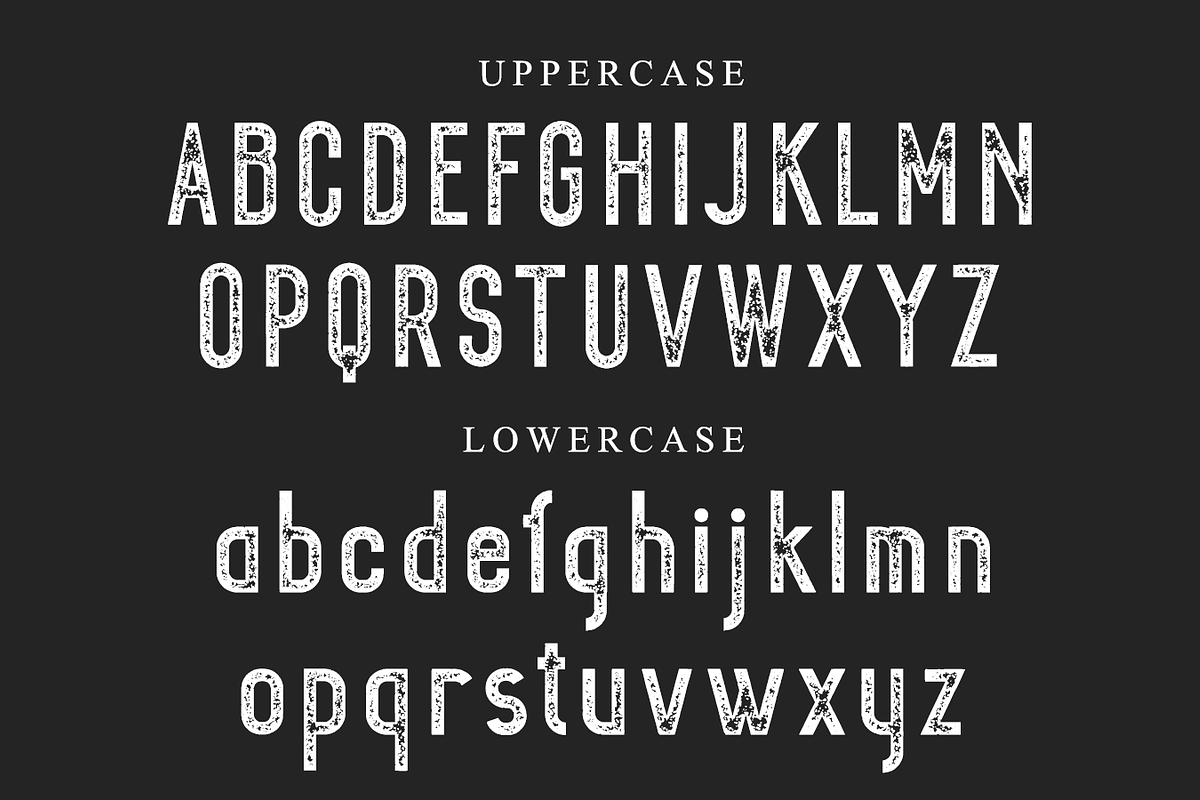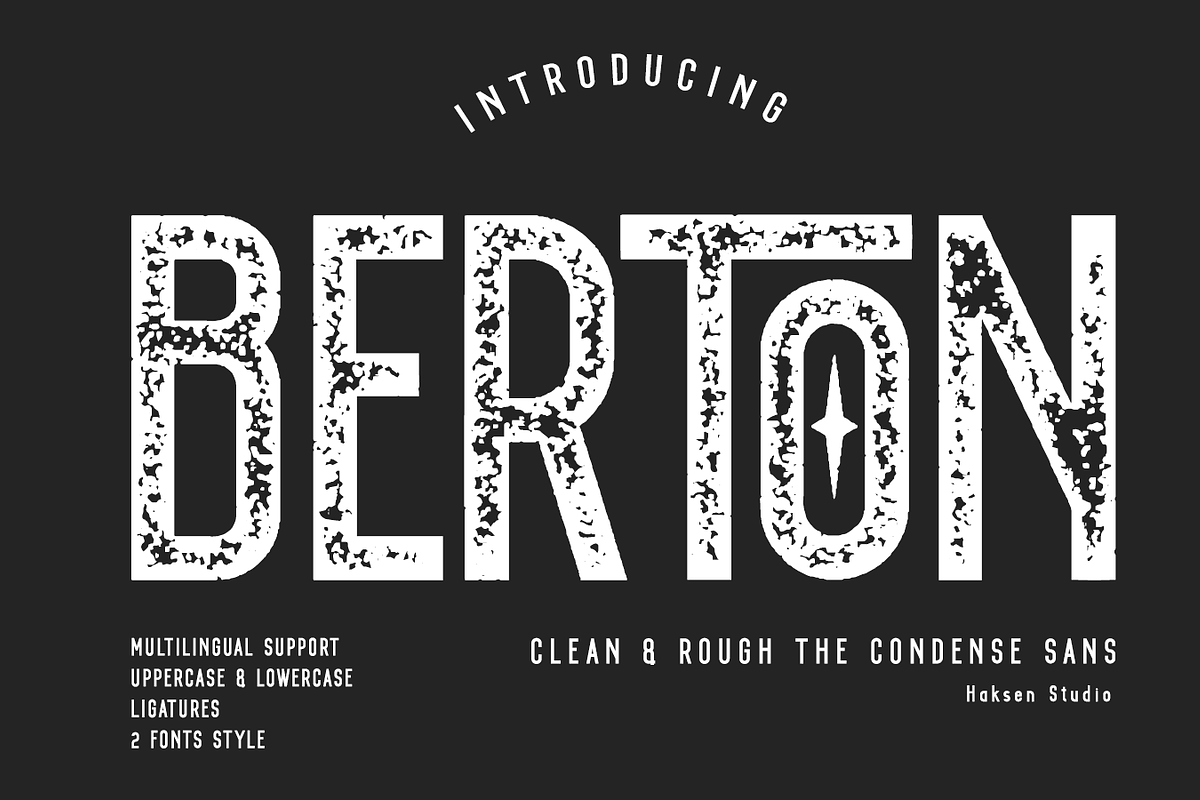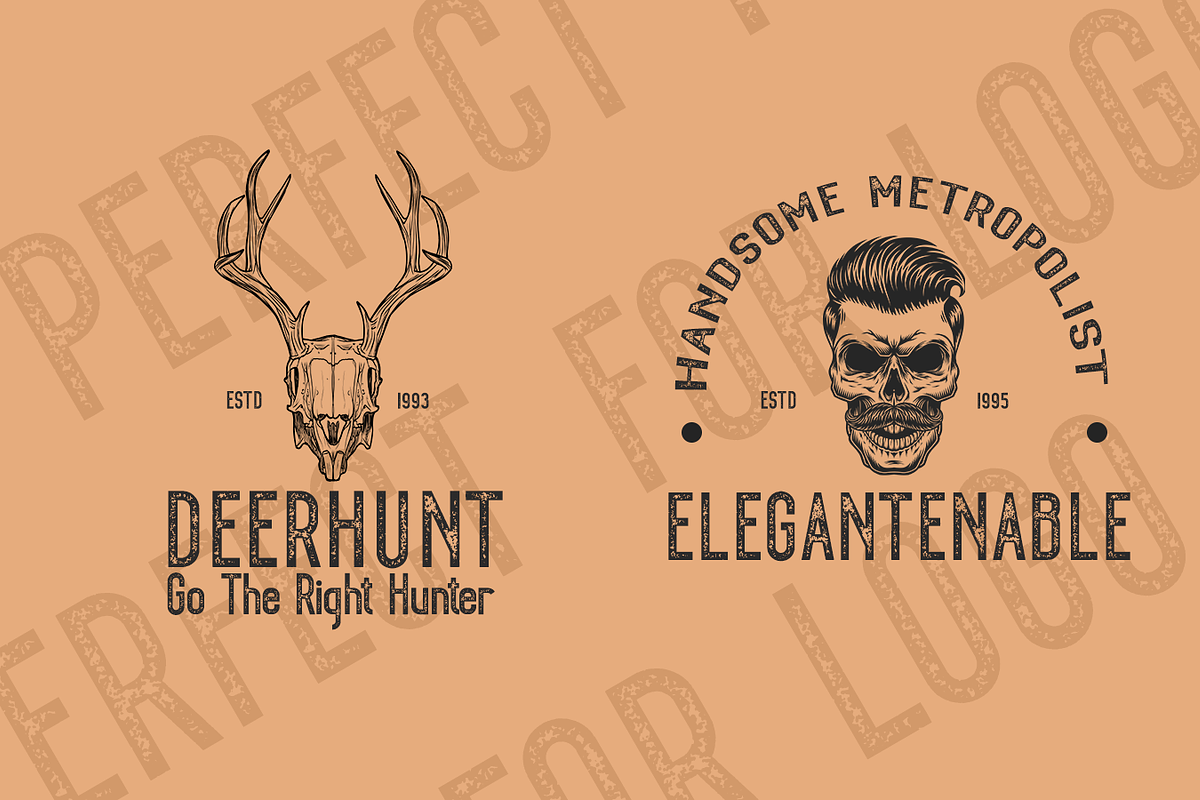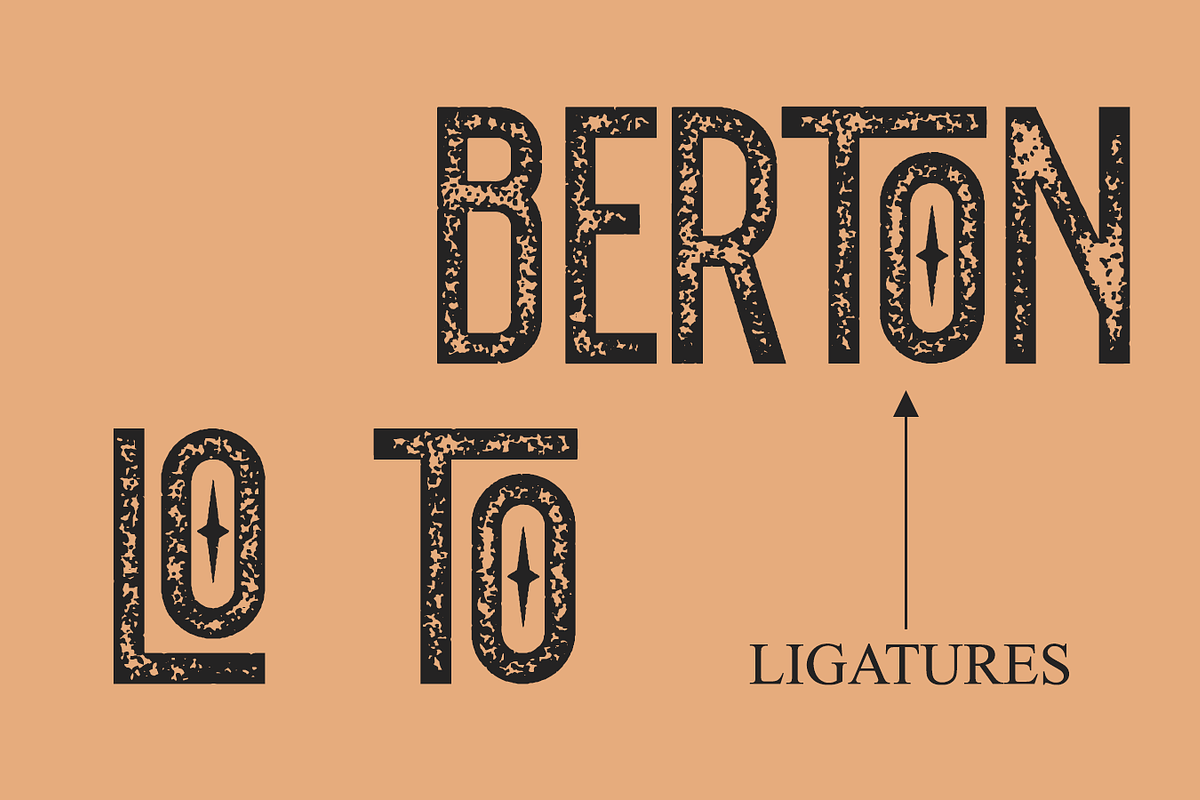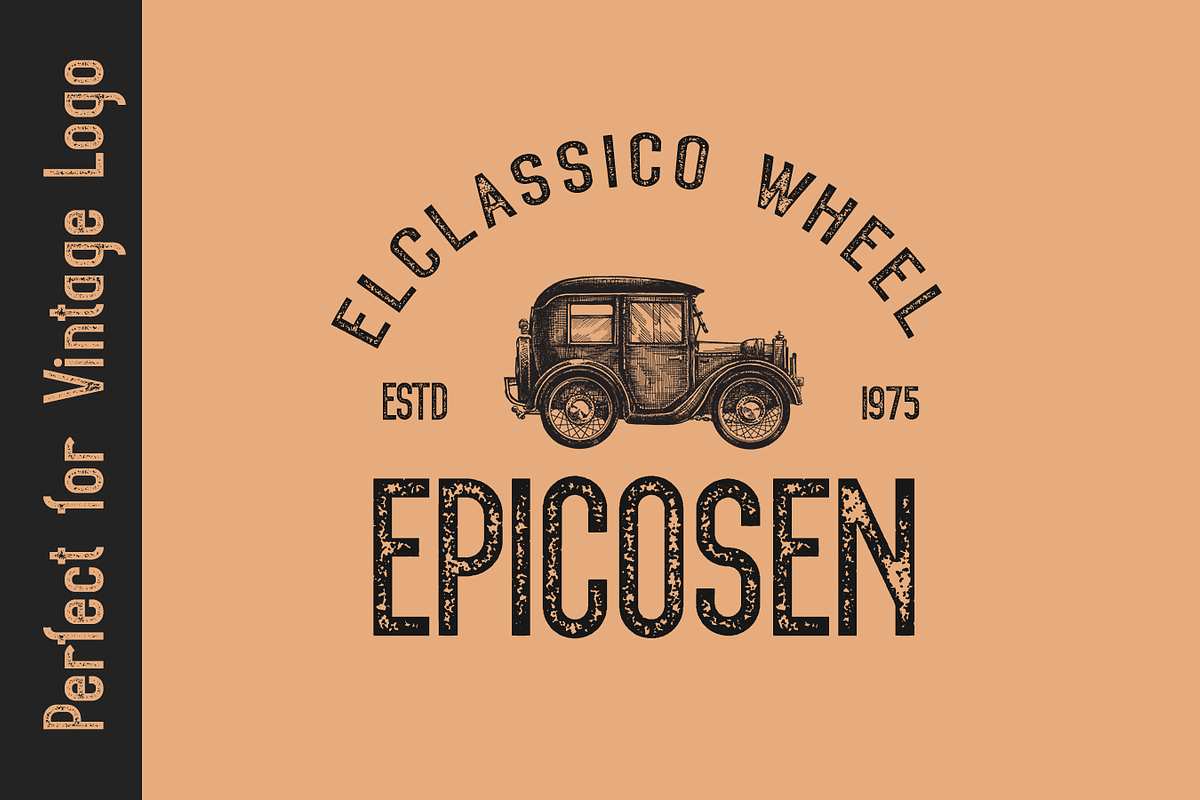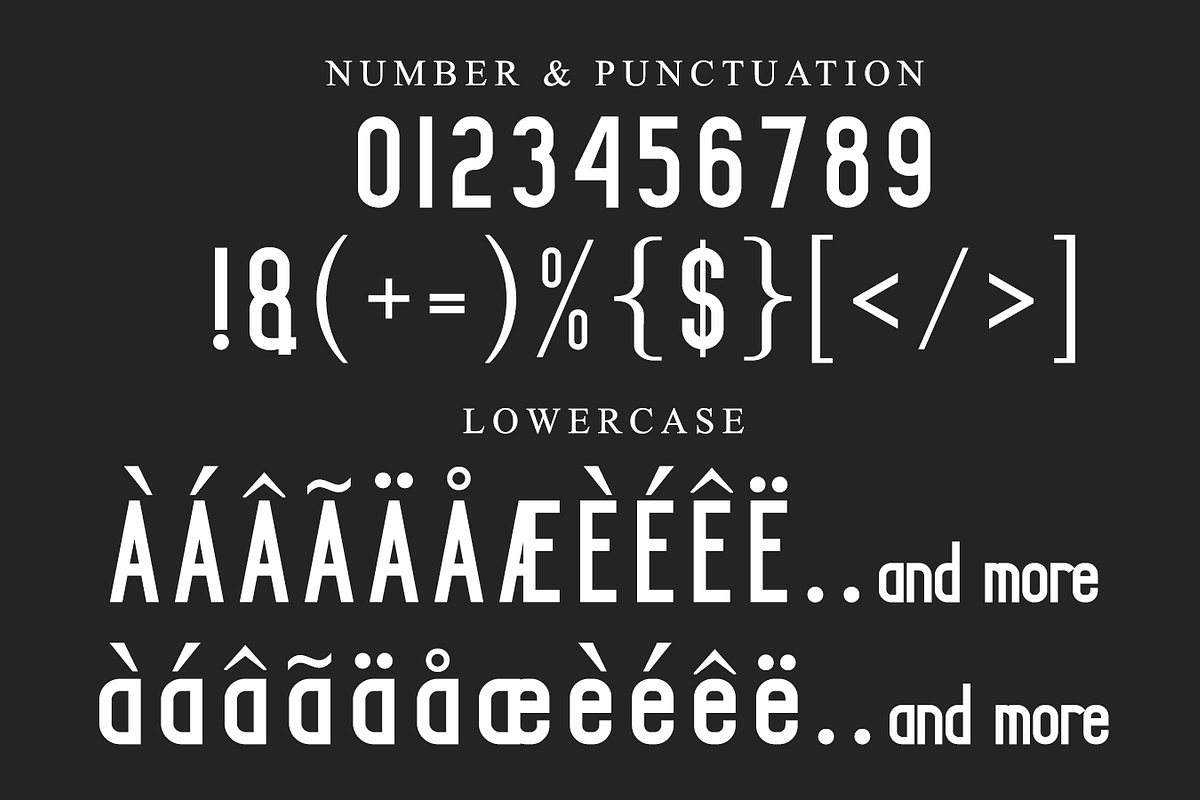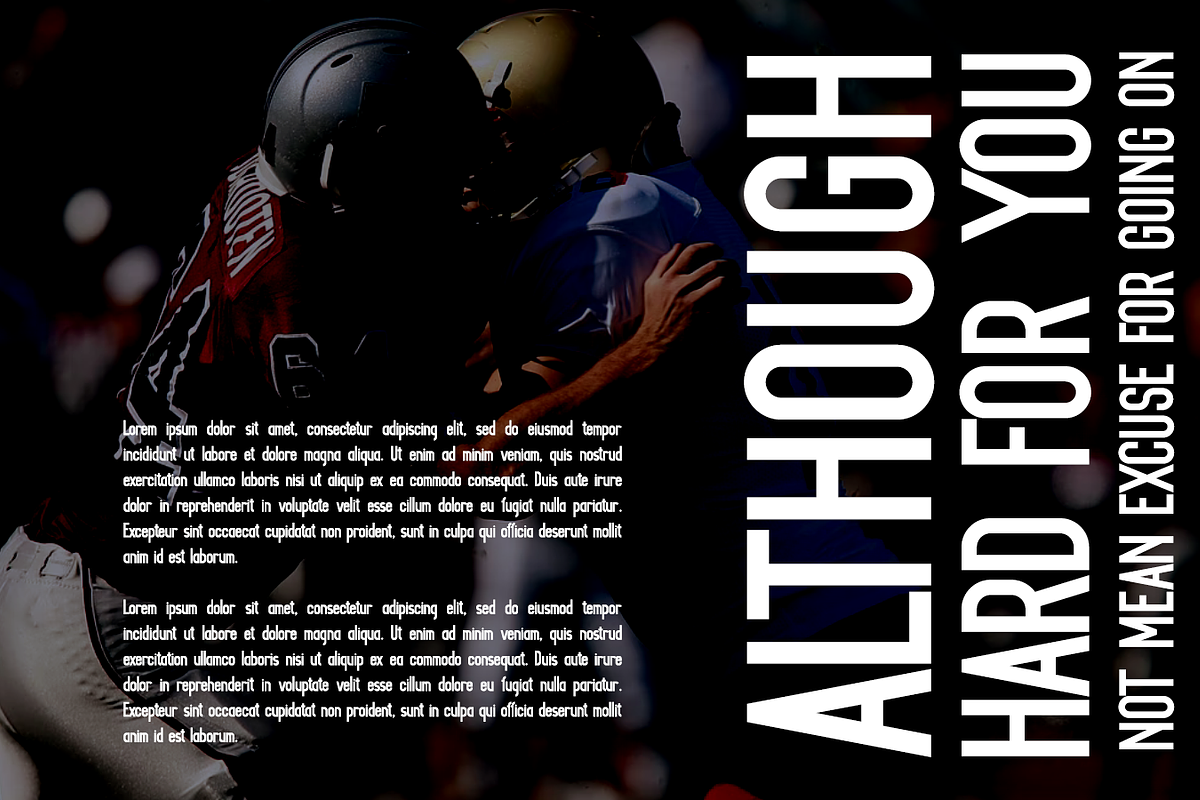
BERTON - Clean and Rough
Introducing BERTON - A condensed display typeface. The condensed style make this font looks great and standout for tittle, headline, logo, etc. There are 2 styles, regular and rough/stamp. Perfectly to be applied to the other various formal forms such as invitations, labels, logos, magazines, books, greeting / wedding cards, packaging, fashion, make up, stationery, novels, labels or any type of advertising purpose.
- Standard glyphs (Uppercase, Lowercase, Numeral & Punctions) -- Work on PC or Mac
- Fonts include multilingual support for; ä ö ü Ä Ö Ü ß ¿ ¡ -- No special software is required, The fonts can be opened and used in * Adobe Illustrator, Adobe Photoshop, Adobe InDesign, even work on Microsoft Word.